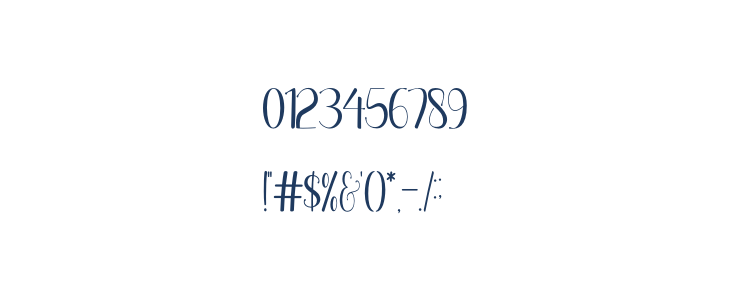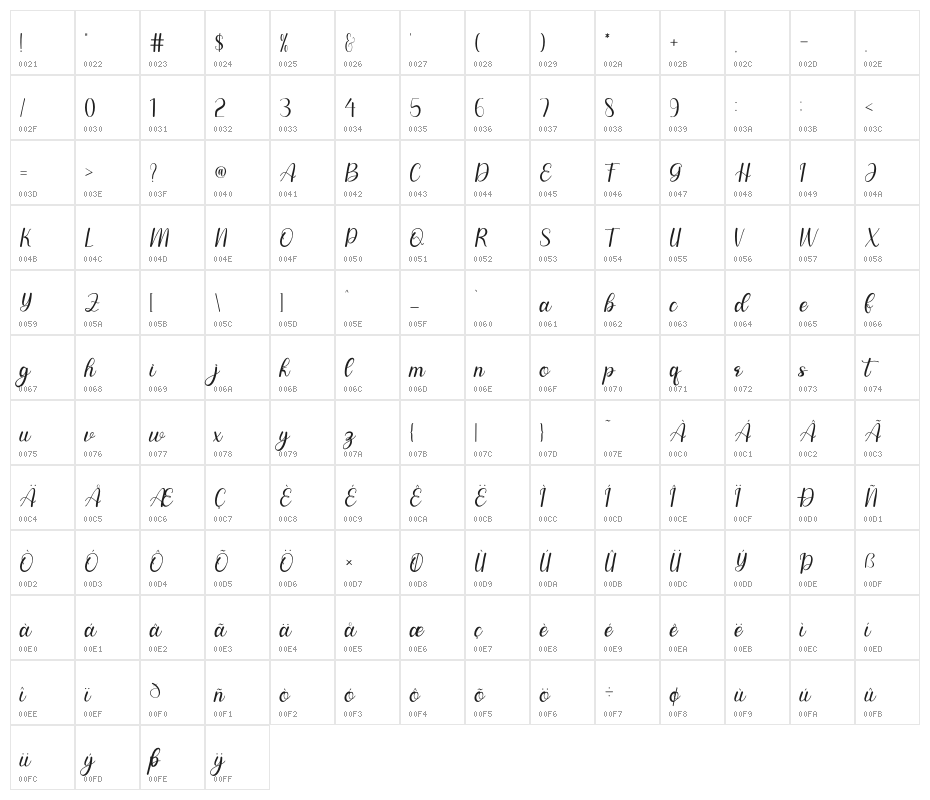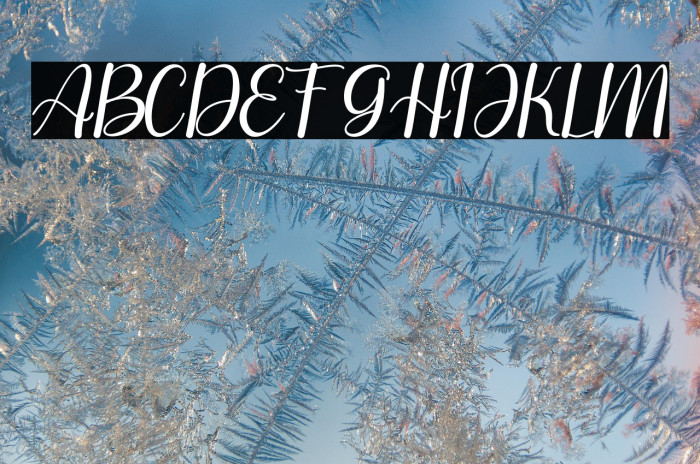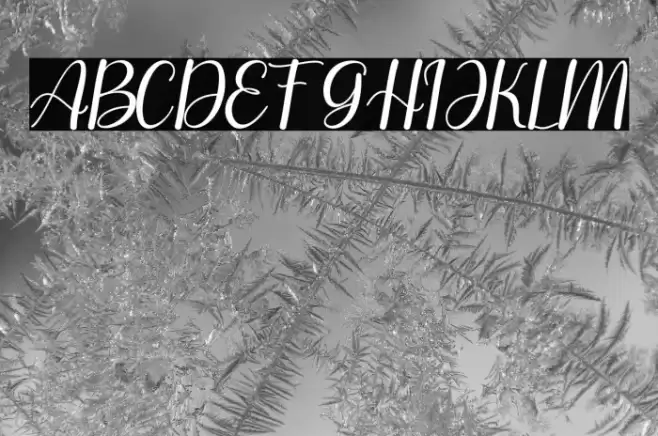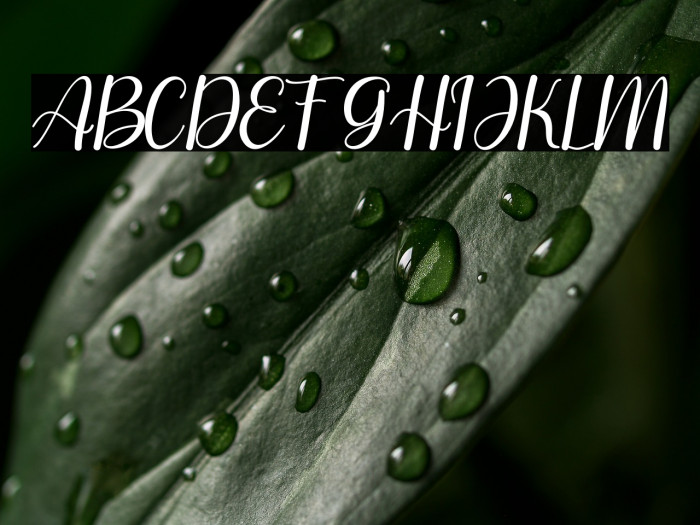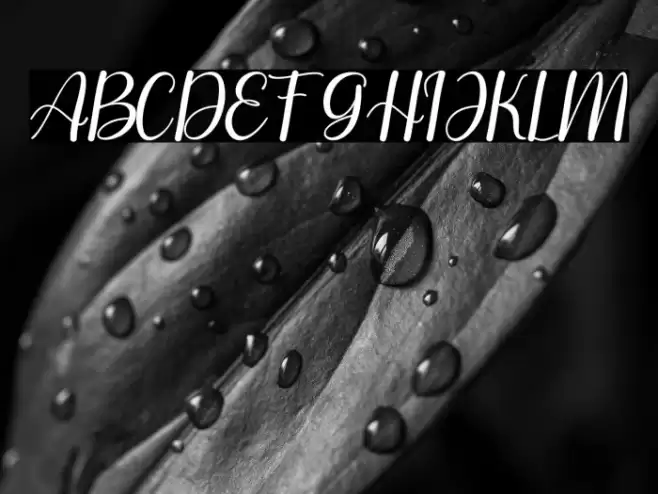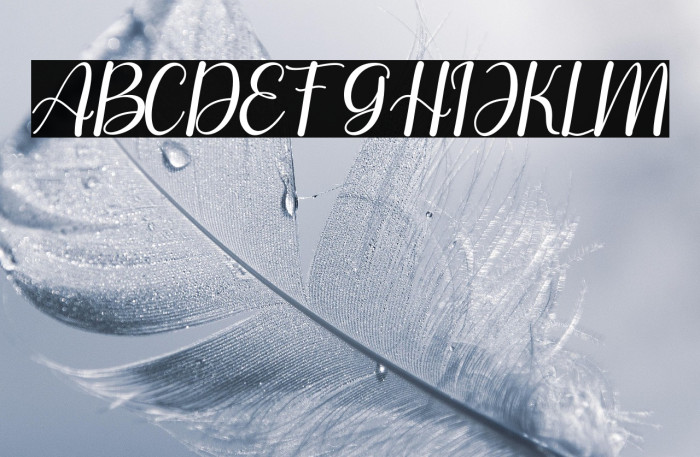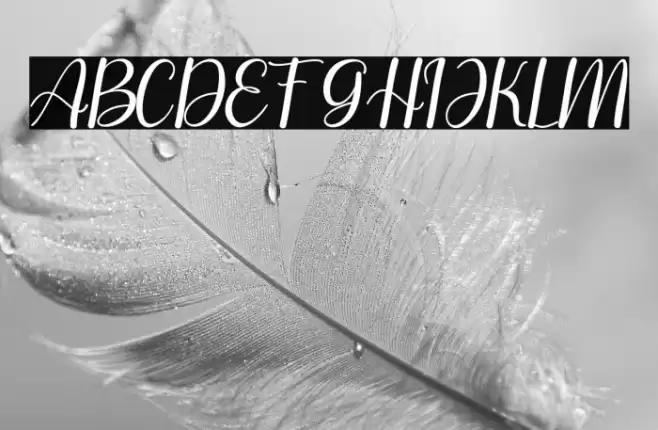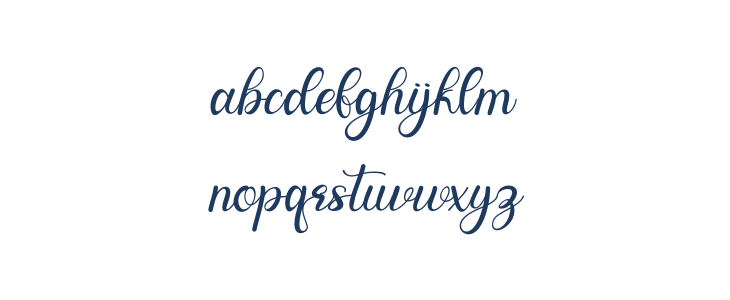
symphonys Font
symphonys Description
This elegant script font features a flowing, cursive style with smooth, connected strokes that give it a graceful and sophisticated appearance. The uppercase letters are tall and slightly slanted, while the lowercase letters maintain a consistent flow, enhancing readability. The numerals and special characters are designed with the same fluidity, ensuring a cohesive look across all text elements. This font exudes a sense of elegance and refinement, making it ideal for formal invitations, branding, and decorative purposes.
| Use Case | Invitations, Branding, Decorative Text |
| Proposed Projects | Ideal for wedding invitations, elegant branding, greeting cards, and decorative signage. |